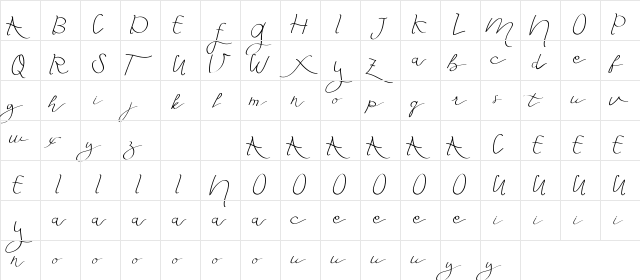
Fly Featherdemo Script Regular
Design Context for Fly Featherdemo Script Typeface
Fly Featherdemo Script brings a calligraphic fluidity to the page — its connecting strokes and expressive curves give it an unmistakably human quality.
Font Pairing: Combine Fly Featherdemo Script with a simple geometric sans for maximum contrast — the tension between flowing curves and clean structure is a classic typographic pairing.
Pro Tip: Use Fly Featherdemo Script for short runs of text — names, titles, or taglines. Extended body copy in script faces tires the eye quickly.